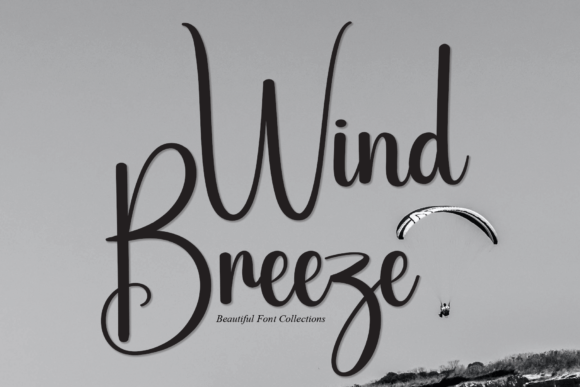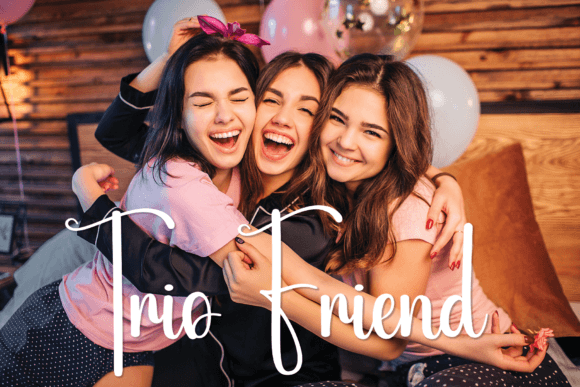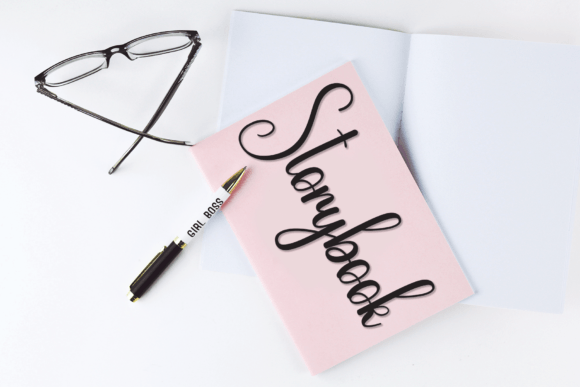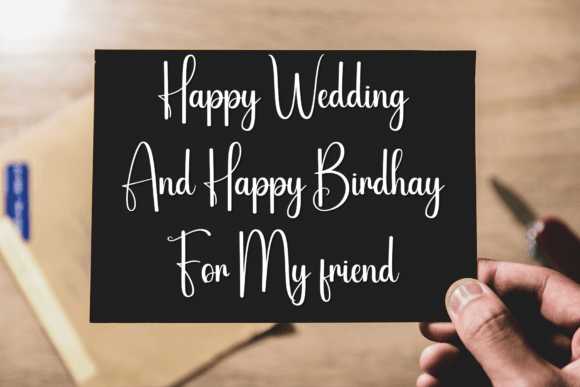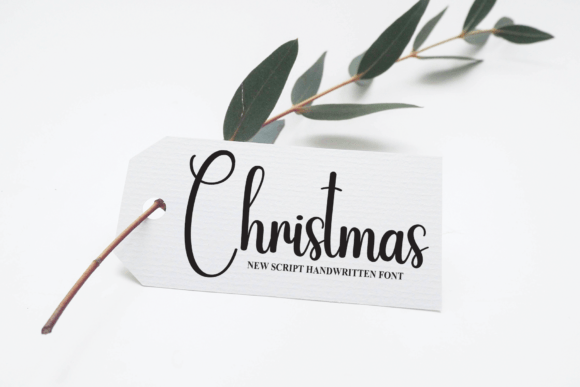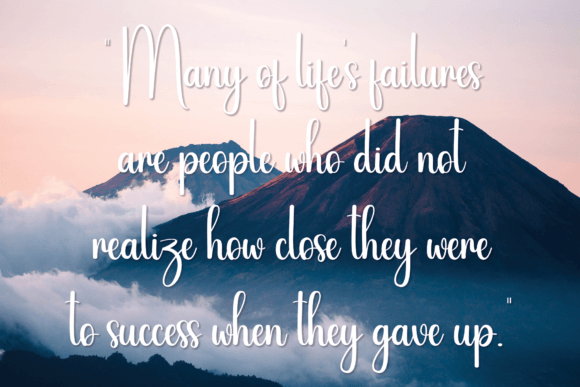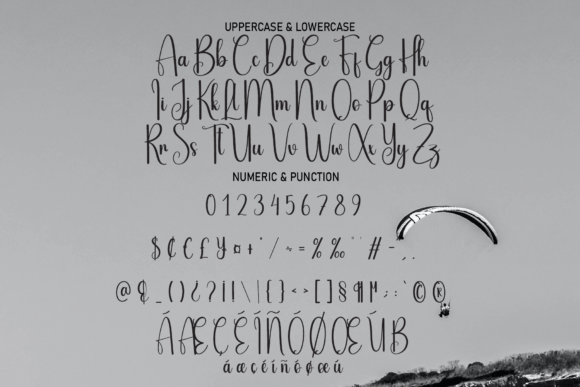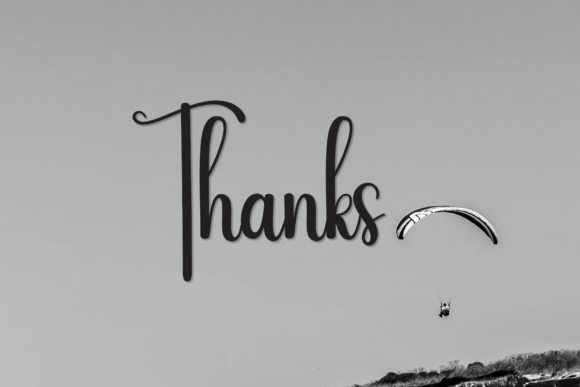
Wind Breeze Font
A Casual and Neat Handwritten Script
Wind Breeze is a clean handwritten font that brings a relaxed, approachable feel to any project. With smooth lines and balanced letter shapes, it feels fresh and modern without losing the charm of true handwriting.
Whether you’re creating logos, cards, or social media posts, Wind Breeze adds a friendly touch that feels professional and personal at the same time.
Wind Breeze is a versatile font you can use across countless design applications. It’s perfect for branding materials, logos, and business cards that need a human, approachable feel. The casual style helps your brand feel warm and inviting.
For personal projects, Wind Breeze shines on greeting cards, event invitations, and custom gifts. The neat handwritten look makes any message feel genuine and thoughtful.
It’s also great for product packaging, labels, and handmade goods. The script’s clean style ensures your text stays legible while adding personality.
On social media, Wind Breeze can help your content stand out in feeds full of generic fonts. Whether you’re sharing quotes, promotions, or announcements, this font keeps your visuals looking fresh and cohesive.
Clear, Friendly, and Easy to Read
Even with its casual feel, Wind Breeze remains clear and legible at any size. The balanced spacing and consistent stroke widths ensure your text always looks tidy and professional.
For a polished look, pair Wind Breeze with a simple sans-serif font. Use Wind Breeze for headings and main text, and the sans-serif for supporting information. This combination creates an organized, modern layout that feels approachable.
To showcase Wind Breeze’s relaxed style, use soft color palettes and clean backgrounds. Shades like white, light gray, and pastel tones help the handwritten strokes stand out without overwhelming the design.
For greeting cards or invitations, consider adding small hand-drawn elements or icons that match the font’s casual mood. On social media, embrace white space so your text has room to breathe and stays easy to read.
Think about the mood you want to convey. Wind Breeze is perfect for designs that should feel warm, simple, and friendly.
Wind Breeze isn’t just another handwritten script—it’s a creative tool that helps you design with authenticity and charm. From professional branding to personal projects, this font adapts easily to your needs and helps your work feel special.
Adding Wind Breeze to your font collection ensures you always have a clean, versatile option ready for any design. Whether you’re creating logos, cards, or social content, this font makes every project feel polished and inviting.